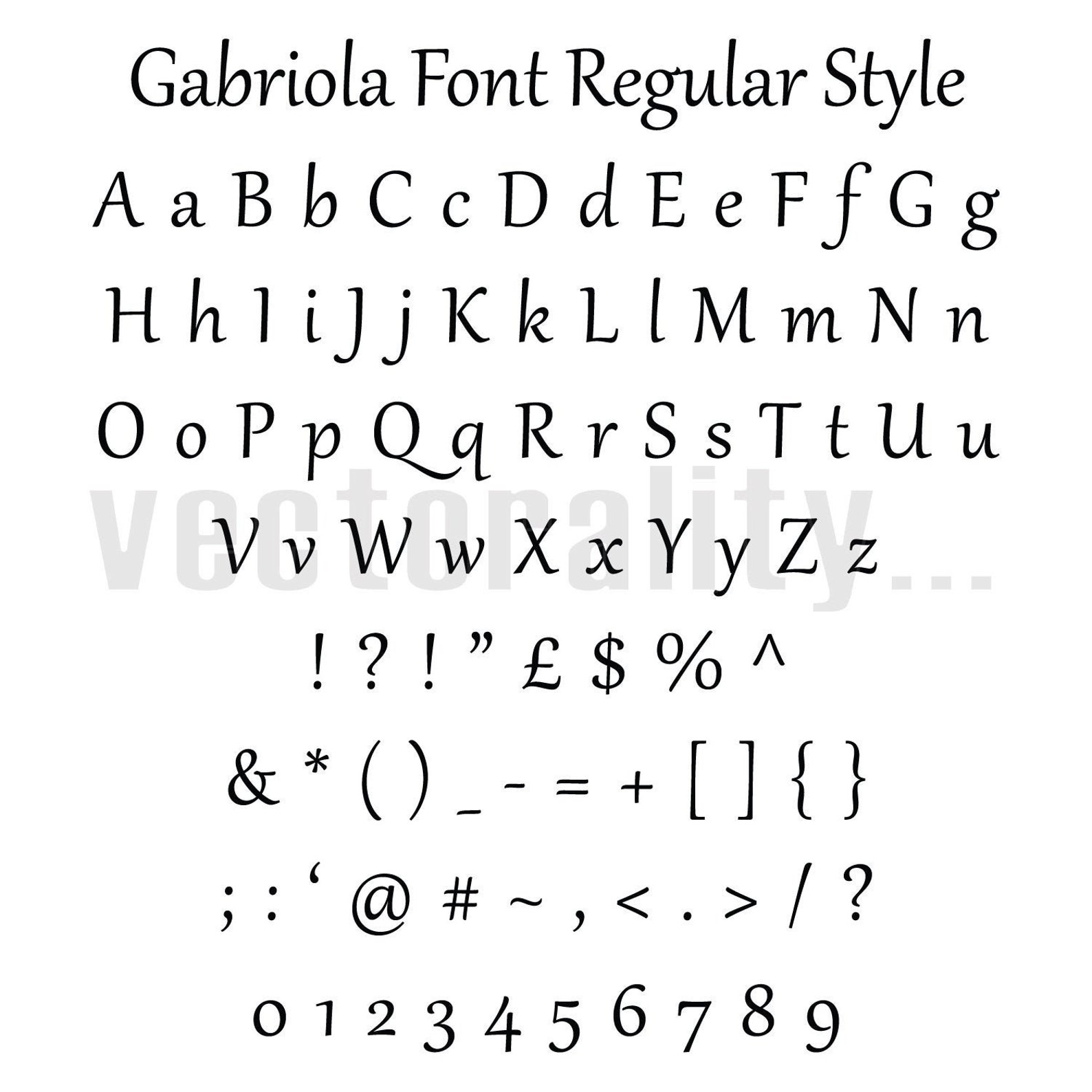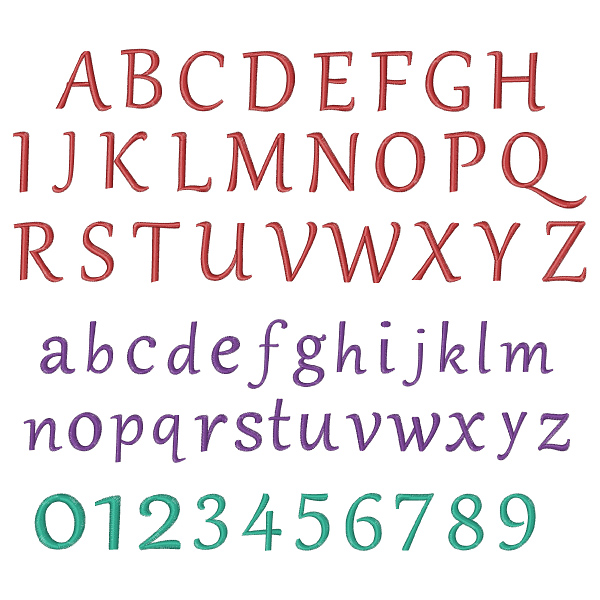
Gabriola Script Font . It is named after gabriola island,. Installable on pc, mac, linux, ios, and android platforms. Download gabriola font from free cdn or use it on your website as webfont. Gabriola is a display typeface designed by john hudson for microsoft corporation. Download gabriola for free, view sample text, rating and more on fontsgeek.com. Discover the free gabriola font at free font download ! Gabriola font family is a display typeface which is created by john hudson in the year 2008.
Discover the free gabriola font at free font download ! Download gabriola font from free cdn or use it on your website as webfont. Gabriola is a display typeface designed by john hudson for microsoft corporation. It is named after gabriola island,. Installable on pc, mac, linux, ios, and android platforms. Gabriola font family is a display typeface which is created by john hudson in the year 2008. Download gabriola for free, view sample text, rating and more on fontsgeek.com.
Gabriola Script Font Discover the free gabriola font at free font download ! Download gabriola for free, view sample text, rating and more on fontsgeek.com. It is named after gabriola island,. Gabriola is a display typeface designed by john hudson for microsoft corporation. Discover the free gabriola font at free font download ! Gabriola font family is a display typeface which is created by john hudson in the year 2008. Installable on pc, mac, linux, ios, and android platforms. Download gabriola font from free cdn or use it on your website as webfont.
Gabriola Font Download Free for Desktop & font Gabriola Script Font Download gabriola for free, view sample text, rating and more on fontsgeek.com. It is named after gabriola island,. Download gabriola font from free cdn or use it on your website as webfont. Installable on pc, mac, linux, ios, and android platforms. Gabriola font family is a display typeface which is created by john hudson in the year 2008. Discover the. Gabriola Script Font.
Gabriola Fonts Hut Gabriola Script Font Download gabriola for free, view sample text, rating and more on fontsgeek.com. Gabriola is a display typeface designed by john hudson for microsoft corporation. Gabriola font family is a display typeface which is created by john hudson in the year 2008. Discover the free gabriola font at free font download ! Download gabriola font from free cdn or use it. Gabriola Script Font.
Gabriola Font Free Download Gabriola Script Font Download gabriola font from free cdn or use it on your website as webfont. Gabriola is a display typeface designed by john hudson for microsoft corporation. Installable on pc, mac, linux, ios, and android platforms. Gabriola font family is a display typeface which is created by john hudson in the year 2008. Download gabriola for free, view sample text, rating. Gabriola Script Font.
Gabriola Font Free Download Gabriola Script Font Discover the free gabriola font at free font download ! Download gabriola for free, view sample text, rating and more on fontsgeek.com. Gabriola font family is a display typeface which is created by john hudson in the year 2008. Installable on pc, mac, linux, ios, and android platforms. It is named after gabriola island,. Gabriola is a display typeface designed. Gabriola Script Font.
Gabriola Font Family Free Download Fonts Bee Gabriola Script Font Gabriola font family is a display typeface which is created by john hudson in the year 2008. Download gabriola font from free cdn or use it on your website as webfont. Installable on pc, mac, linux, ios, and android platforms. Discover the free gabriola font at free font download ! It is named after gabriola island,. Gabriola is a display. Gabriola Script Font.
BX Embroidery Font Gabriola Script Font It is named after gabriola island,. Download gabriola font from free cdn or use it on your website as webfont. Gabriola is a display typeface designed by john hudson for microsoft corporation. Discover the free gabriola font at free font download ! Download gabriola for free, view sample text, rating and more on fontsgeek.com. Gabriola font family is a display. Gabriola Script Font.
Gabriola Font Free Download Gabriola Script Font Gabriola is a display typeface designed by john hudson for microsoft corporation. Download gabriola font from free cdn or use it on your website as webfont. Discover the free gabriola font at free font download ! Installable on pc, mac, linux, ios, and android platforms. Gabriola font family is a display typeface which is created by john hudson in the. Gabriola Script Font.
Gabriola Font Free Download Gabriola Script Font Gabriola is a display typeface designed by john hudson for microsoft corporation. Gabriola font family is a display typeface which is created by john hudson in the year 2008. It is named after gabriola island,. Installable on pc, mac, linux, ios, and android platforms. Discover the free gabriola font at free font download ! Download gabriola font from free cdn. Gabriola Script Font.
Gabriola Font Fontzaa Fonts Free Download Gabriola Script Font Discover the free gabriola font at free font download ! It is named after gabriola island,. Download gabriola for free, view sample text, rating and more on fontsgeek.com. Download gabriola font from free cdn or use it on your website as webfont. Gabriola font family is a display typeface which is created by john hudson in the year 2008. Gabriola. Gabriola Script Font.